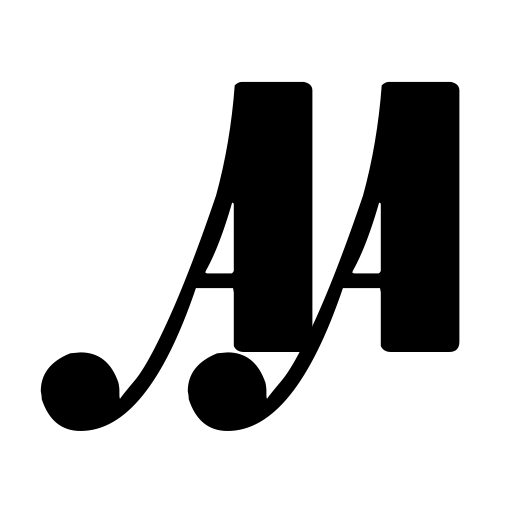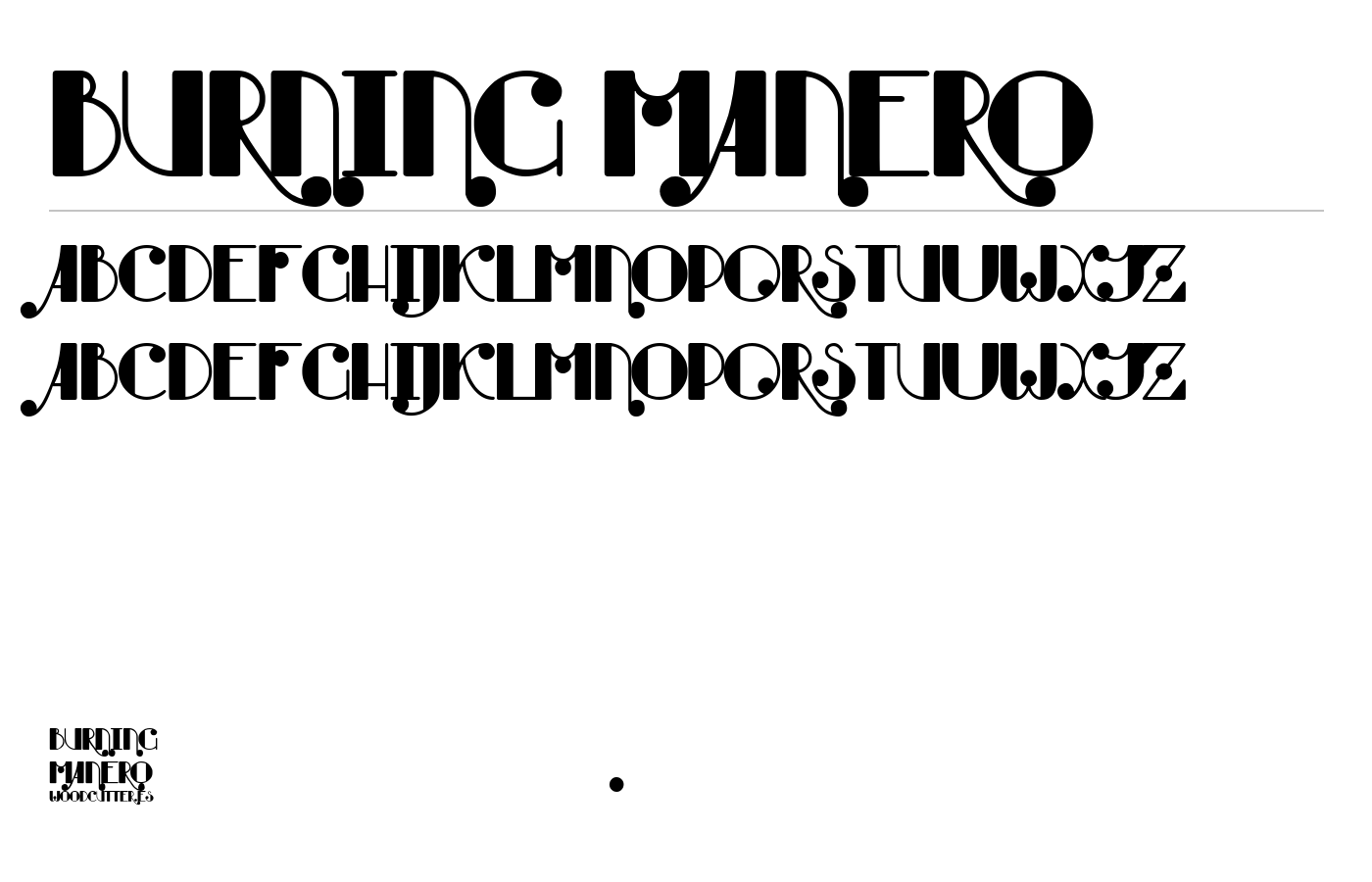
Burning Manero is an eye-catching display font with a bold, condensed style featuring high contrast between thick and thin strokes and playful, decorative swirls ending in rounded dots. Its unique geometric letterforms, all uppercase, give a modern yet artistic flair, making it perfect for creative branding, posters, and headlines where a striking, avant-garde look is desired. This font shines in contexts that call for a stylish, distinctive personality that stands out and captures attention.
Burning Manero Font
About Burning Manero Font
| Font family | Burning Manero Font |
| Designer | Jordi Manero Pascual |